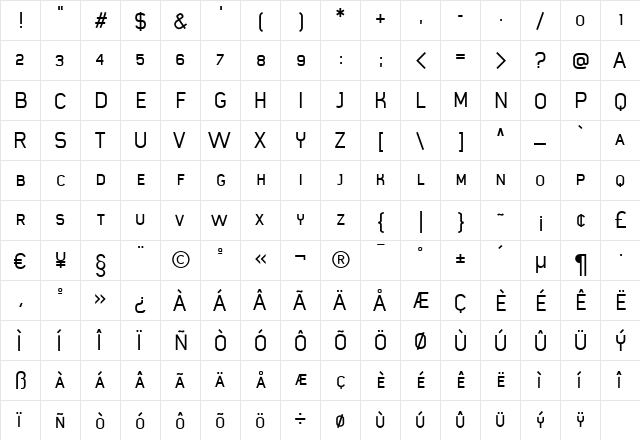
MisterGiacco Regular
Regular · Diego Giaccone  ·
Design Context for MisterGiacco Typeface
MisterGiacco offers clean, dependable letterforms without strong stylistic allegiance, making it a practical choice for designers who need flexibility.